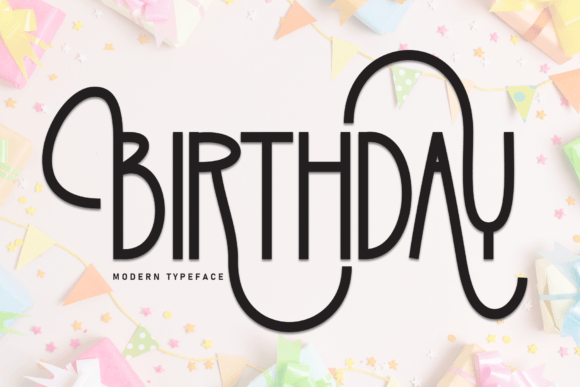
The Perfect Gift for Your Design: Birthday Font
Have you ever stumbled upon a font that instantly sparks an idea and makes your creative juices flow? For designers, this moment is a treasure trove of inspiration, and it’s exactly what happens when you discover the Birthday Font. This neat and casual sans-serif font is more than just a typeface – it’s a key to unlocking simplicity and readability in your designs.
As a versatile font, Birthday Font is perfect for user interfaces, informative signage, and modern branding. Its clean lines and friendly character make it an ideal choice for designers looking to create a clear and approachable message, whether it’s for digital or print projects. With Birthday Font, you can rest assured that your message will stand out and resonate with your audience.
Birthday Font Key Features
- Unique Characteristics: The font features colorful and playful characters, including balloons, candles, and confetti, making it perfect for birthday-themed designs and celebrations.
- Style Options: The Birthday Font offers a range of style options, including bold, italic, and regular styles, allowing designers to add variety and emphasis to their designs.
Birthday Font Review
I recently had the chance to work with the Birthday Font, and I must say it’s a mixed bag. Here are my thoughts.
- Unique and playful design: The font has a charming, whimsical feel to it that’s perfect for adding a celebratory touch to your designs.
- Wide range of use cases: From party invitations to social media graphics, the Birthday Font is versatile and can be used in a variety of contexts.
- Good legibility: Despite its playful nature, the font is still easy to read, making it a great choice for text-heavy designs.
- Limited font sizes: The font starts to lose its charm and becomes illegible when scaled up or down significantly.
- Not ideal for body text: While the font is great for headlines and titles, it’s not the best choice for large blocks of text.
- Lack of font variations: The font comes in only a few weights, which may limit its versatility in certain design contexts.
The Birthday Font is a fun and creative addition to any designer’s toolkit. While it has some limitations, it’s perfect for adding a celebratory touch to your designs. Just be mindful of its limitations and use it in the right context.
Birthday Font is perfect for creating birthday invitations, party decorations, and social media graphics. To get the most out of it, experiment with different font sizes, colors, and styles to match your brand and theme.
- Birthday invitations and party decorations
- Social media graphics and ads
- Personalized birthday cards and gifts
Alternatives to Birthday Font for Designers
Great Vibes is a modern and elegant script font, perfect for creating a festive atmosphere. It’s ideal for designing birthday invitations, party decorations, and other celebratory materials. Compared to Birthday Font, Great Vibes has a more refined and sophisticated look, making it suitable for a wider range of design projects.
Carolyna Pro is a beautiful and versatile script font, suitable for various design applications, including birthday invitations, event signage, and social media graphics. It’s more elegant and refined than Birthday Font, with a wider range of ligatures and swashes. Carolyna Pro is ideal for designers who want to add a touch of sophistication to their birthday designs.
Alex Brush is a elegant and cursive script font, perfect for creating a warm and inviting atmosphere. It’s ideal for designing birthday cards, invitations, and other celebratory materials. Compared to Birthday Font, Alex Brush has a more refined and sophisticated look, with a focus on elegance and sophistication.